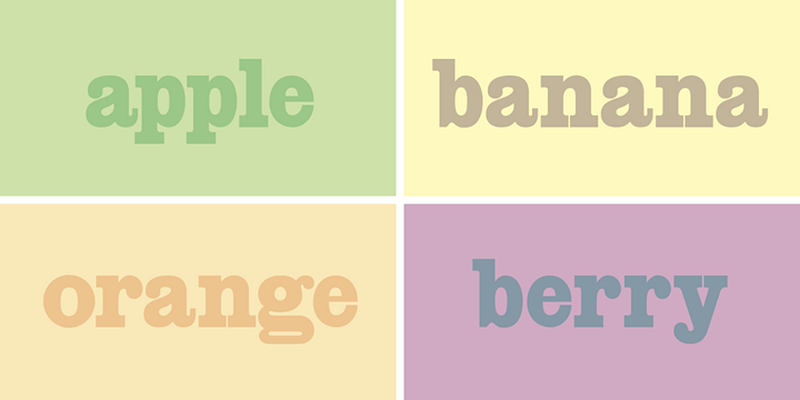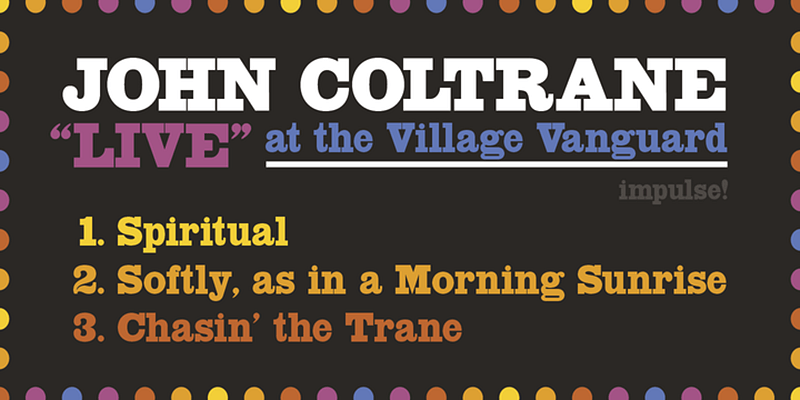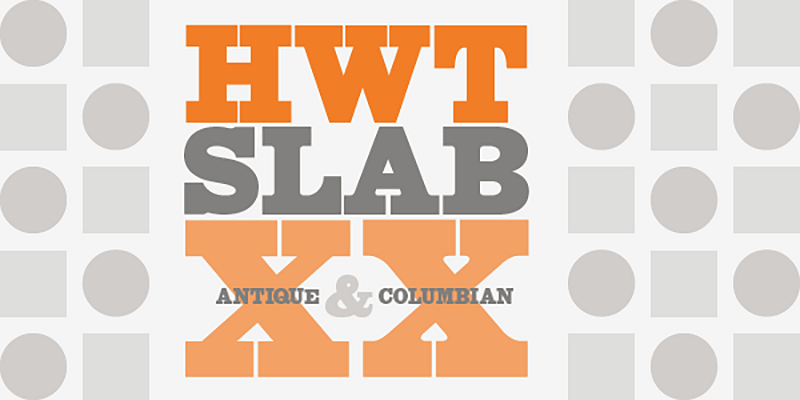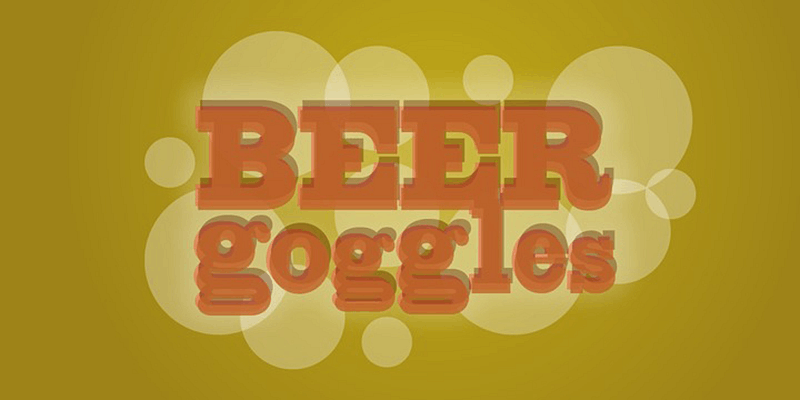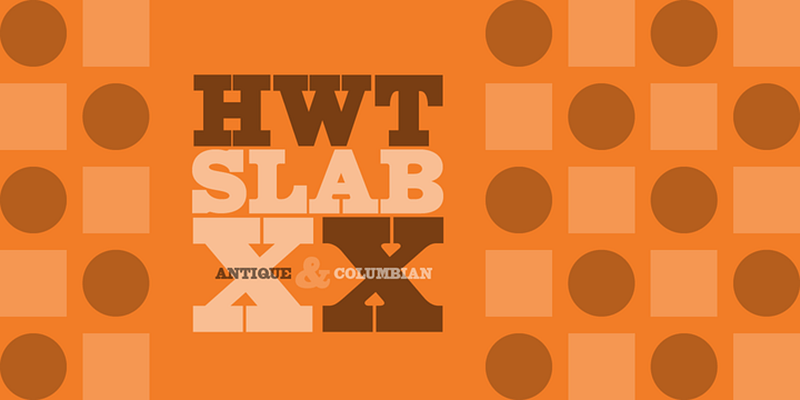
HWT Slab are two extra bold fonts of wood type styles: Columbian featuring bracketed or rounded serif joins, and Antique with true squared off slab serifs.
Hamilton Wood Type Collection, established in 2012, is a joint venture between P22 Type Foundry and the Hamilton Wood Type & Printing Museum. The founding goal was to safeguard a typographic era and make classic wood type designs available as digital fonts for modern audiences. This historical collection of serif revivals, sans reinterpretations, decorative embellishments, script reclamations, and original chromatic designs is stunningly relevant and usable for any imaginative design practice.